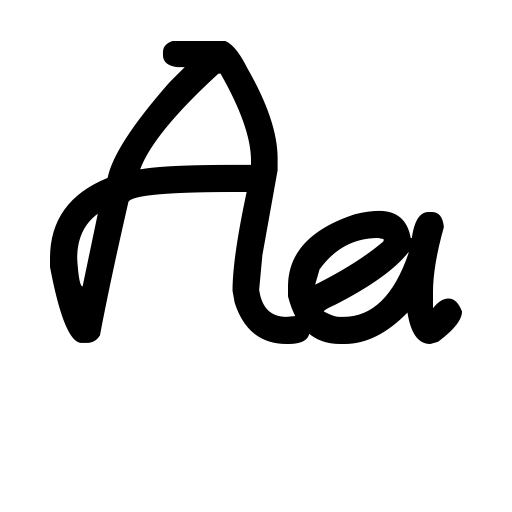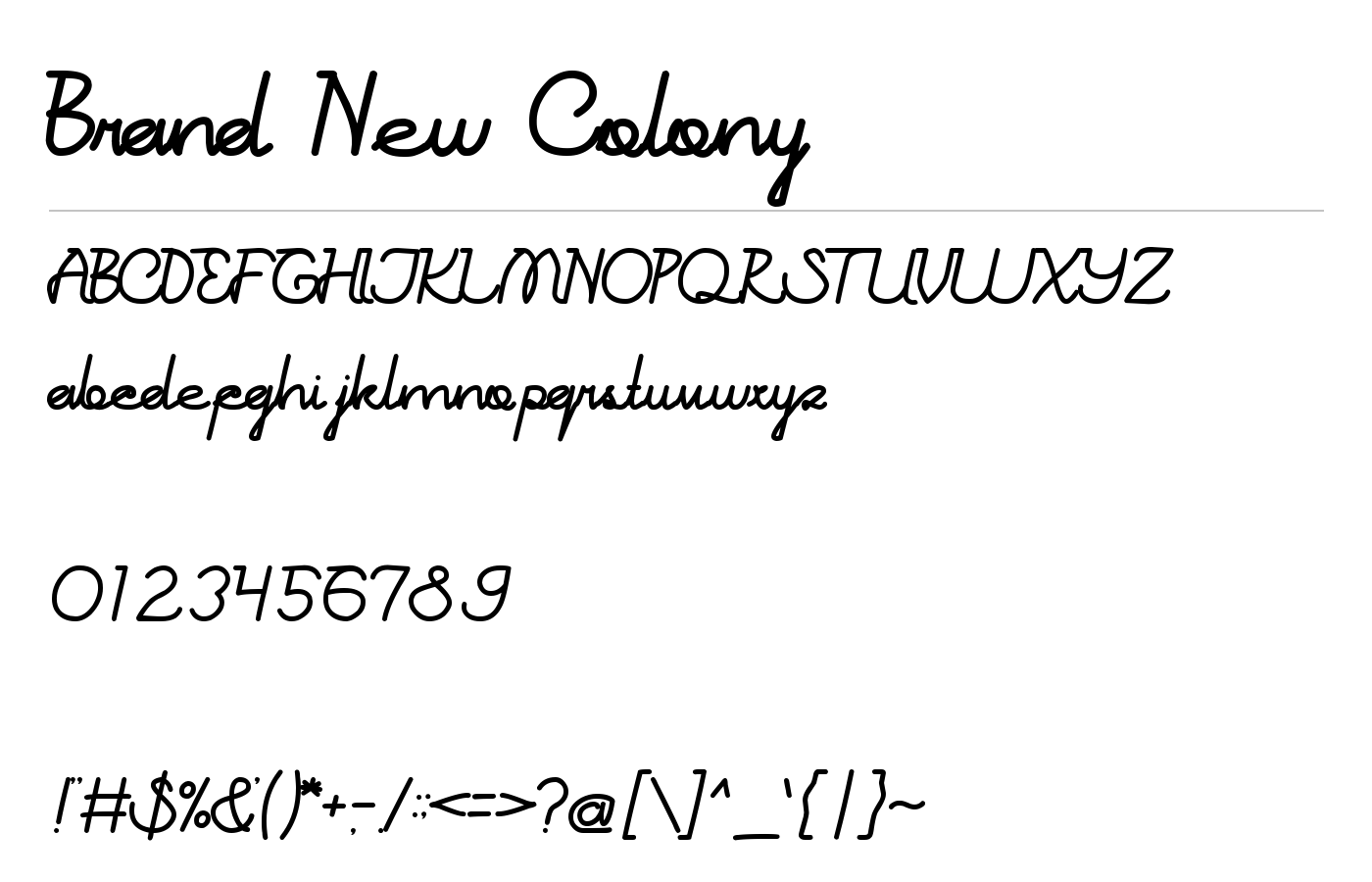
Brand New Colony is a playful and informal script font that mimics casual handwriting with smooth, slightly whimsical strokes and consistent weight. Its connected letterforms and subtle loops create a friendly, approachable feel, making it ideal for personal branding, creative projects, and styles that want to convey warmth and authenticity. This font works well for logos, invitations, and social media graphics where a relaxed, human touch is desired.
Brand New Colony Font
About Brand New Colony Font